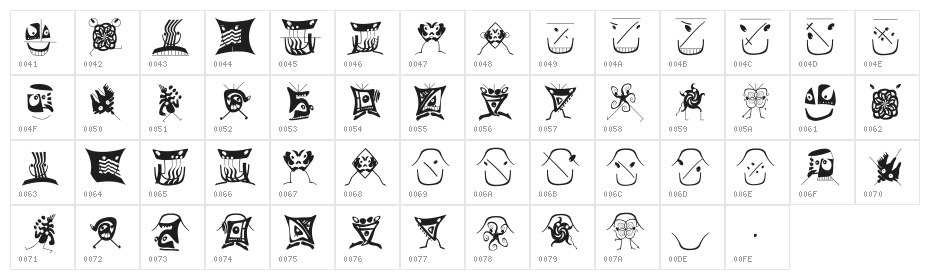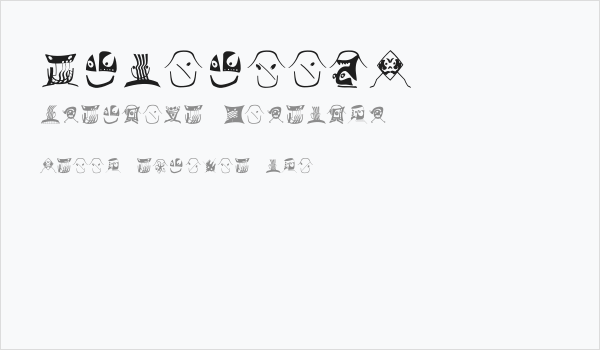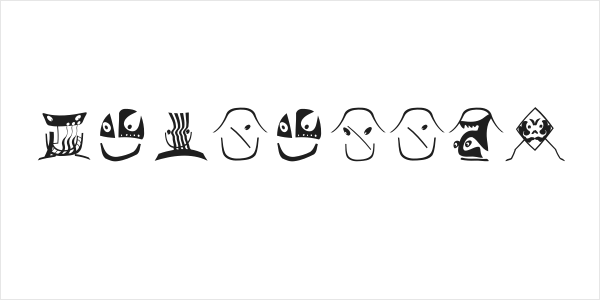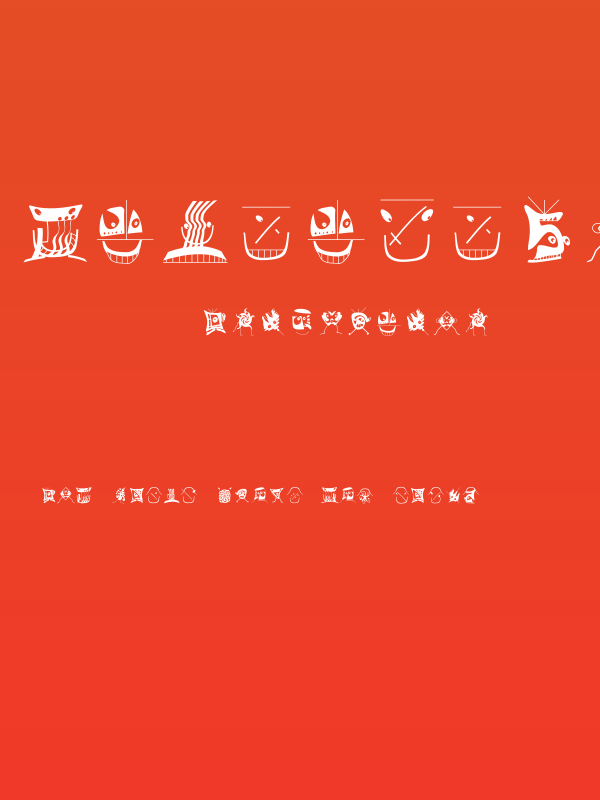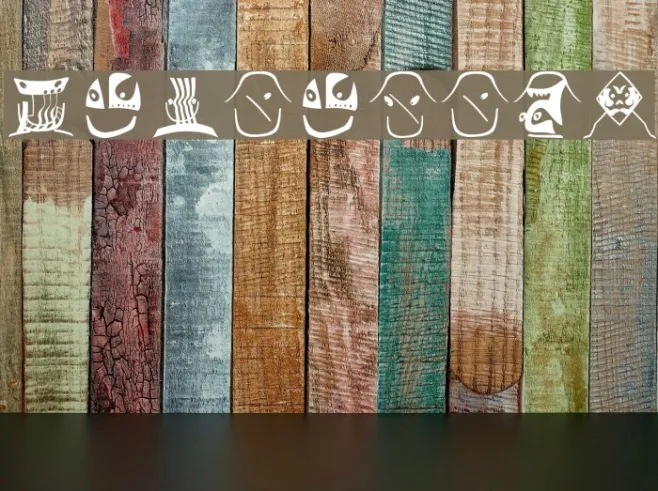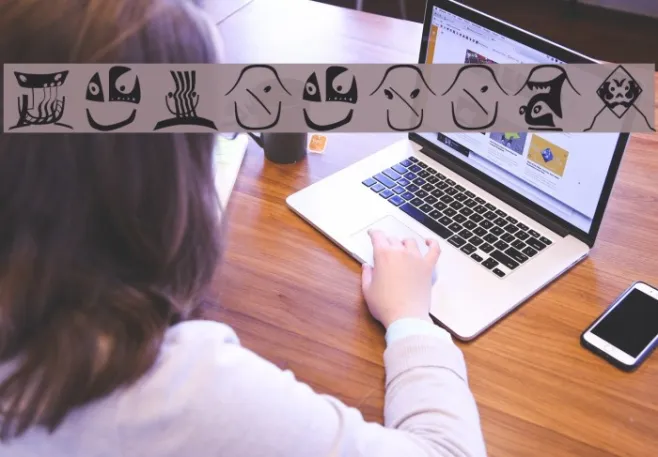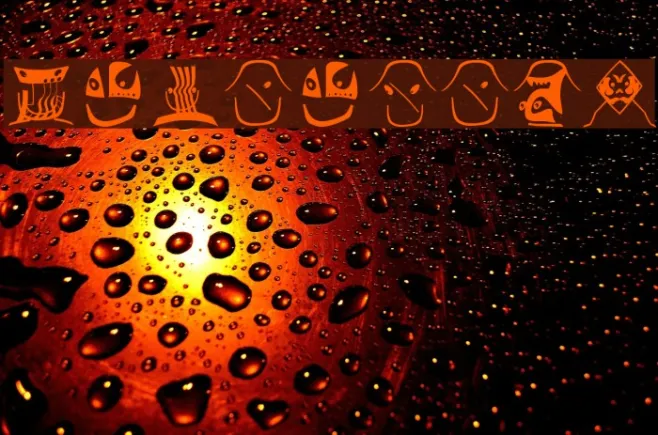
Facialish Font
Facialish Description
This font is a highly decorative and whimsical collection of characters, each designed to resemble a unique face or mask. The characters are bold and intricate, featuring a variety of patterns and shapes that give them a playful and artistic appearance. The design incorporates elements such as lines, dots, and abstract forms to create a sense of personality and expression in each character. The overall aesthetic is reminiscent of tribal or folk art, with a modern twist that makes it suitable for creative and unconventional projects. The font is not intended for traditional text but rather for artistic displays and thematic designs.
| Use Case | Logos, Posters, Artistic Displays |
| Proposed Projects | Ideal for artistic projects, themed posters, creative branding, and unique invitations. |